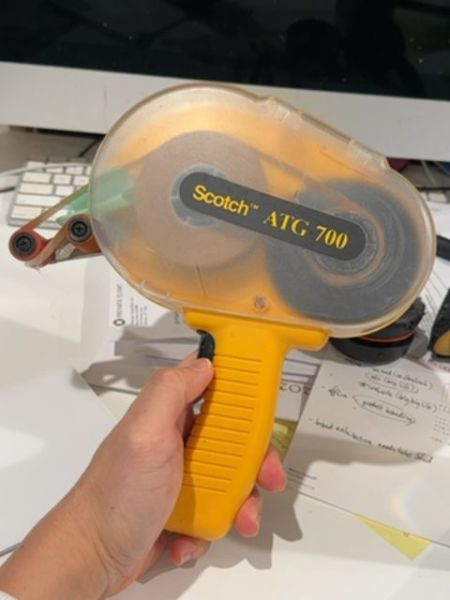
Scotch ATG 700
The Scotch ATG 700 is an adhesive transfer gun used for applying double-sided tape. It is commonly used in framing, crafting, and various types of assembly where precise application of the adhesive is required.
The typography on the packaging uses a bold sans-serif font for 'Scotch' which conveys strength and reliability. The model number 'ATG 700' is presented in a similarly bold style but italicized, drawing attention to the model designation. The clear, yellow lettering is set against a black background, enhancing readability and visual contrast.
The product features a transparent plastic casing that allows the user to see the tape inside. It is complemented by a bright yellow handle and trigger, providing a visually striking contrast and ensuring ergonomic use.